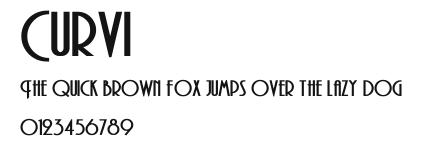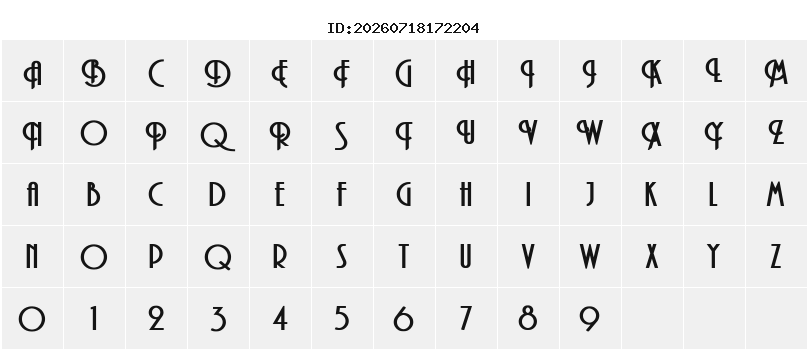
• Font Name: Curvi
• Full Font Name: Curvi Bold
About Curvi.ttf
Curvi.ttf is a modern, elegant sans-serif font designed for ultimate readability and visual harmony. Perfect for branding, headlines, web design, and print materials.